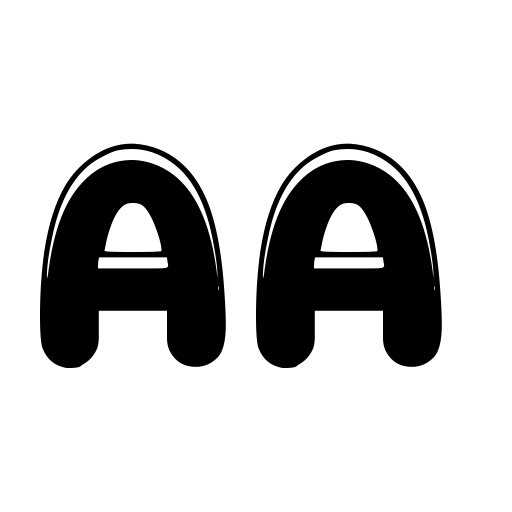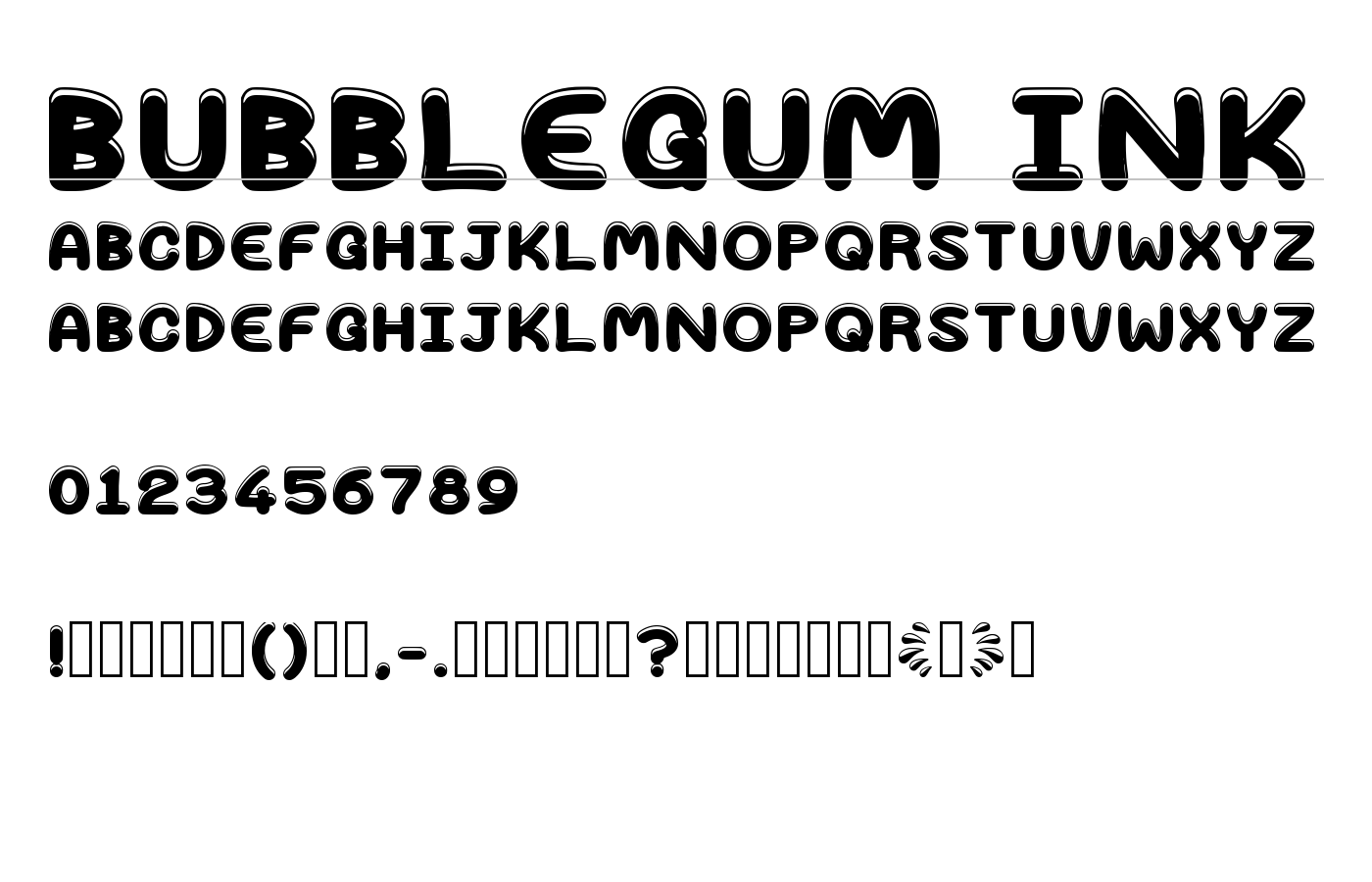
Bubblegum Ink is a playful and bold display font with a rounded, bubbly shape that gives it a fun and whimsical personality. Its thick strokes and soft, inflated letterforms make it ideal for eye-catching headlines, kids' products, and any design aiming to convey joy and creativity. This font works best in casual, lively contexts where a friendly and approachable vibe is desired.
Bubblegum Ink Font